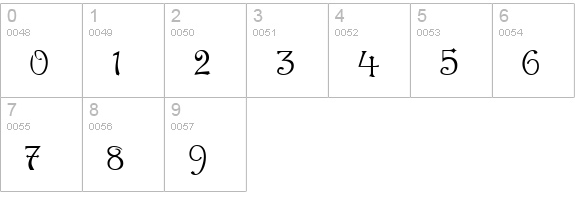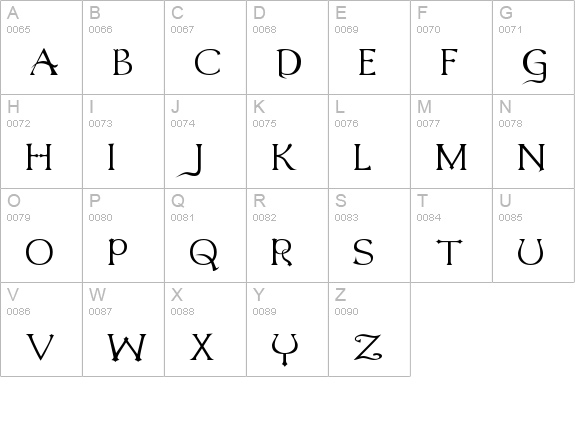
MilleniGem Font Details
MilleniGem font is a modern and stylish typeface that exudes sophistication and elegance. Its sleek lines and contemporary design make it perfect for a wide range of design projects, from branding to editorial design. The font features a unique combination of sharp angles and soft curves, creating a harmonious balance that catches the eye. What sets MilleniGem font apart is its versatility - it can be used for both headlines and body text, making it a versatile choice for any project. The font is available in a variety of weights and styles, allowing you to easily customize and adapt it to suit your specific needs. Best of all, MilleniGem font is completely free to download at FontsMarket.com, making it accessible to designers of all levels. Whether you're a seasoned professional or just starting out, this font is sure to add a touch of sophistication to your designs. Download MilleniGem font today and elevate your projects to the next level.